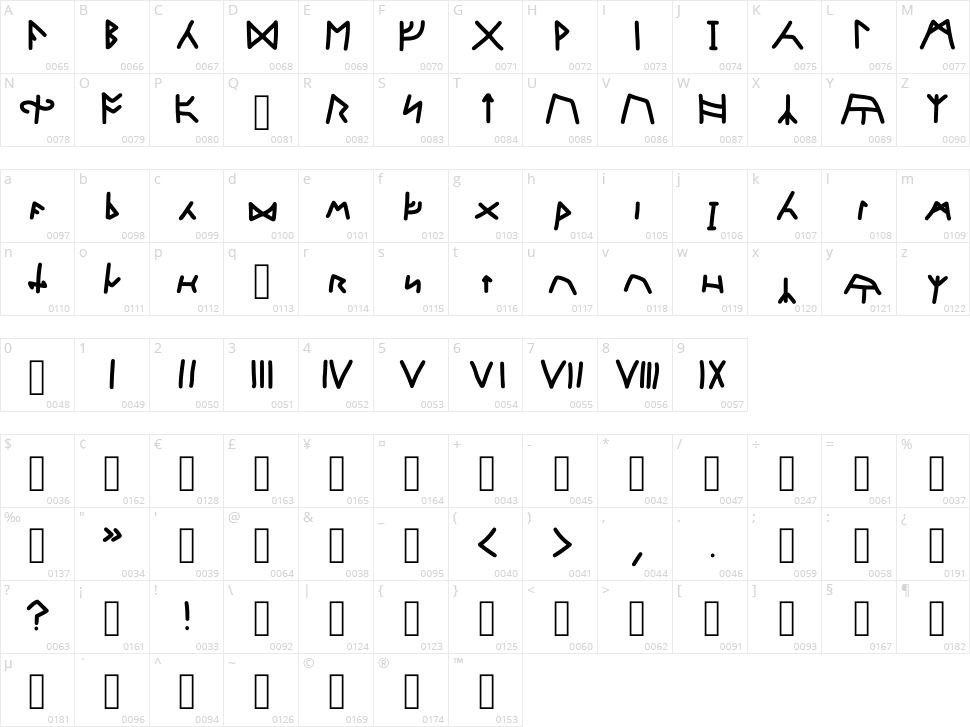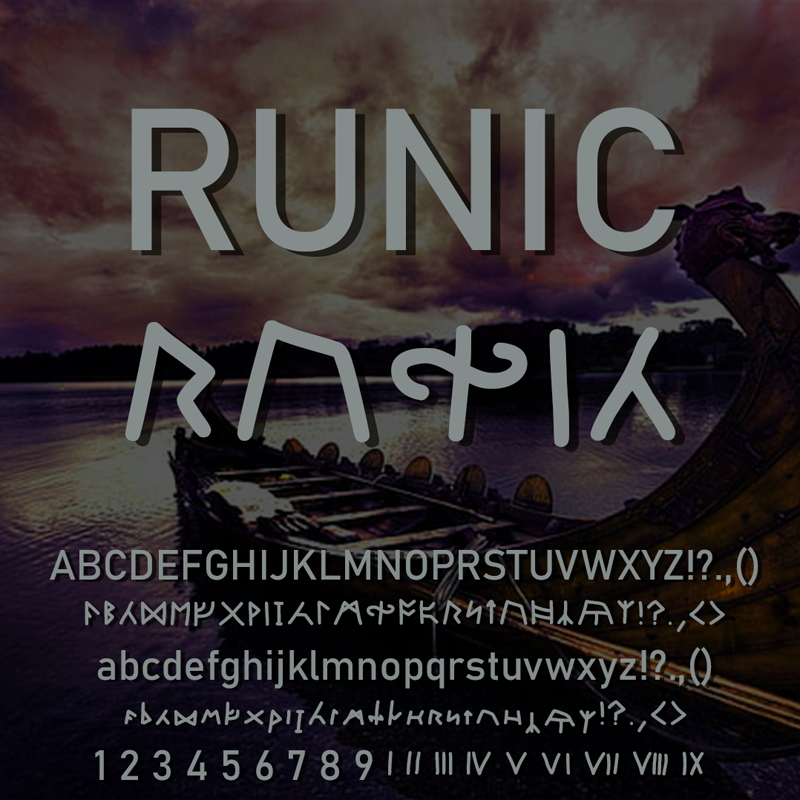
This is a font that took heavy inspiration form the old runic alphabet. It also includes some roman numerals. I could not find any lower-case runic letters so I got a bit creative with those, as well as the exclamation mark, question mark, etc.